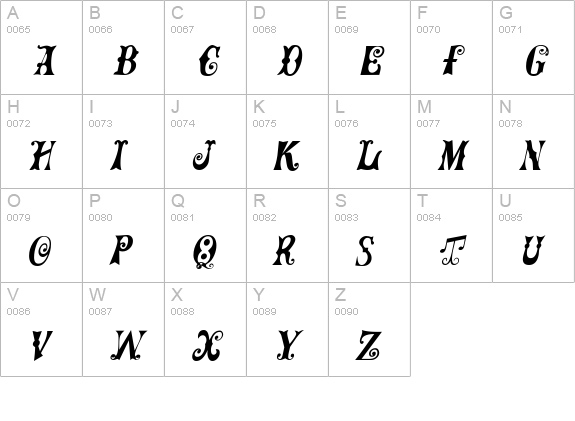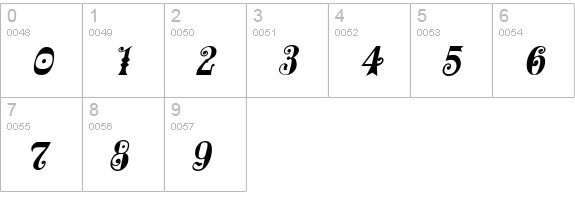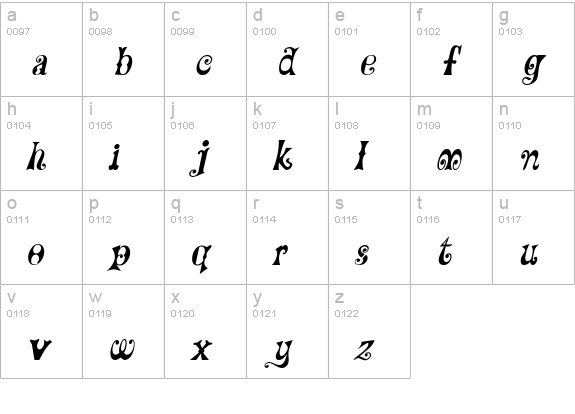
Frilly Italic Font Details
Frilly Italic is a distinctive, italic variant in the Frilly typeface family \xE2\x80\x94 well suited to design and typography projects.
Introducing the enchanting Frilly Italic font, a whimsical and elegant typeface perfect for adding a touch of sophistication to your designs. With its delicate curls and graceful curves, Frilly Italic is sure to captivate and elevate any project it graces. This font exudes a sense of charm and refinement, making it ideal for invitations, greeting cards, branding, and more. Best of all, Frilly Italic is completely free to download at FontsMarket.com! Embrace the beauty of this stunning font and watch your designs come to life with a touch of elegance and flair. Download Frilly Italic today and let your creativity soar!